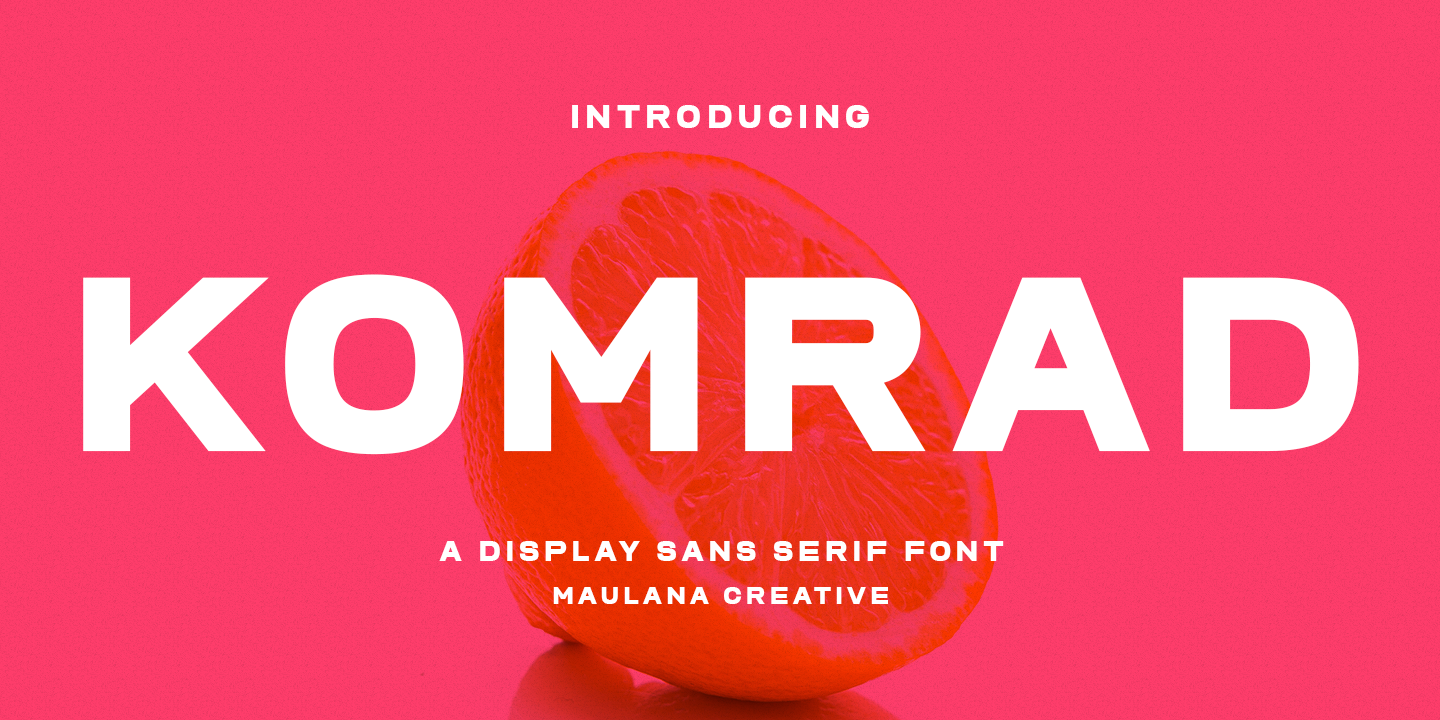
The Komrad Font is a bold and distinctive choice for projects that aim to evoke a strong, utilitarian, and often retro-futuristic aesthetic, frequently drawing inspiration from Soviet-era design or industrial typography. It's perfectly suited for impactful headlines, poster design, gaming interfaces (especially for dystopian or sci-fi themes), brand identities for tech or industrial companies, album art for electronic or industrial music, and any design that requires a commanding, efficient, and visually striking typeface. Its robust and often geometric character makes it ideal for conveying a sense of power, order, and revolutionary modernity.
What makes Komrad Font so exciting is its ability to immediately grab attention with its uncompromising and often blocky letterforms. It typically features heavy, condensed, or monospaced strokes that give your text an undeniable presence and a sense of raw, unpolished strength. This font isn't just about reading words; it's about experiencing them as part of a powerful, almost propagandistic message, making your designs feel both authoritative and historically resonant. It excels at delivering maximum visual impact in headlines and display contexts, ensuring your messages are bold, memorable, and infused with a distinctive, no-nonsense vibe. The "Komrad Font Free Download" also makes it accessible for test projects, allowing you to glimpse its formidable presence. Its design often evokes old factory stencils or Soviet-era constructivist art, making it uniquely impactful.
The Komrad Font family typically focuses on variations that enhance its core display and impactful nature. You will generally find a strong regular style that embodies its signature bold aesthetic. Given its specific design purpose, extensive weight variations might be less common, but some versions could offer subtle condensed or expanded styles, or perhaps textured/distressed variants to add further character while maintaining its distinctive, industrial charm. The emphasis is on providing a consistent yet visually strong identity that resonates with its utilitarian and politically-charged inspirations, making it a powerful tool for evoking a sense of historical weight and bold purpose.
Whether you're designing a historical exhibition, crafting a powerful advertising campaign, or creating compelling visuals for a project that demands a sense of Soviet-era art and strength, the Komrad Font Free Download offers an indispensable tool. Its artistic appeal and commanding visual presence make it a premier choice for any project that requires a typeface of exceptional character, historical resonance, and undeniable impact.